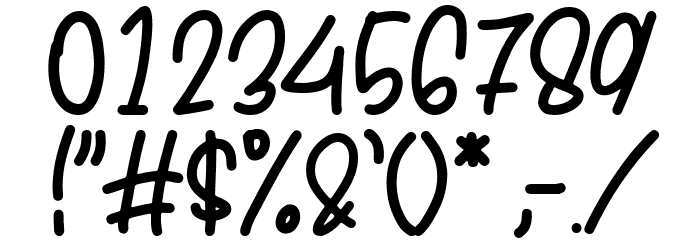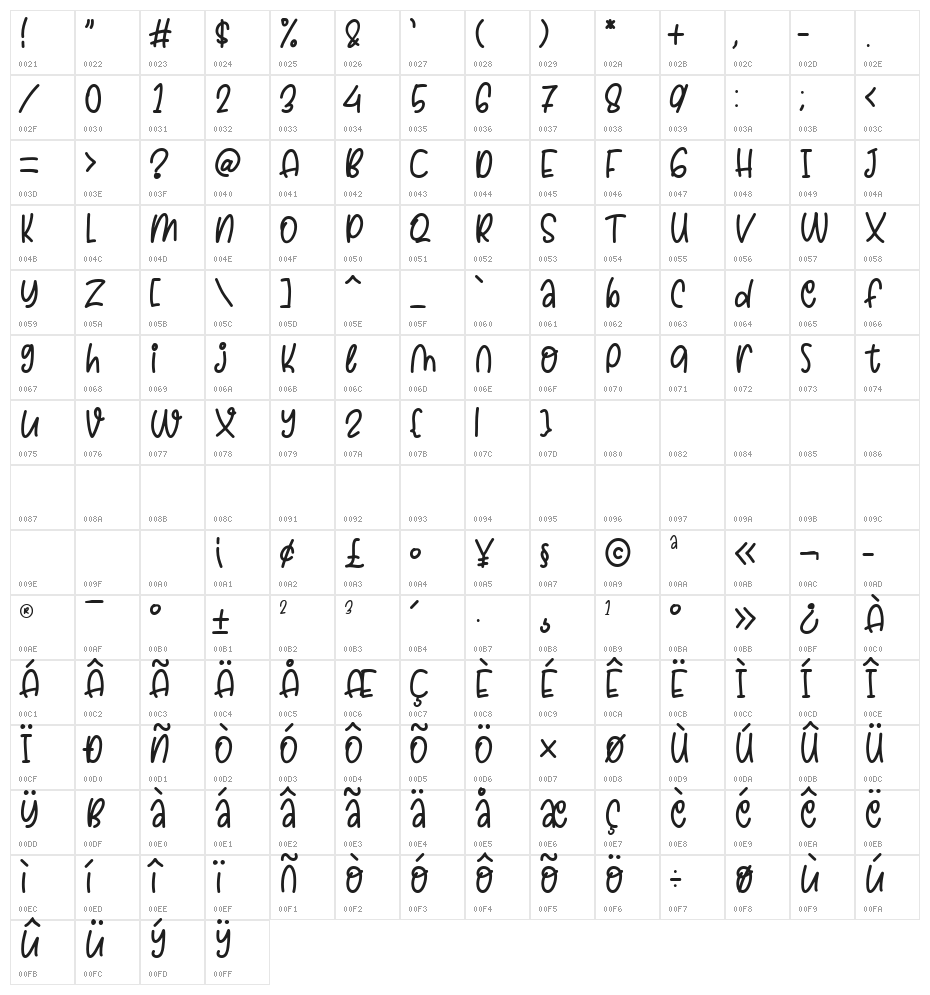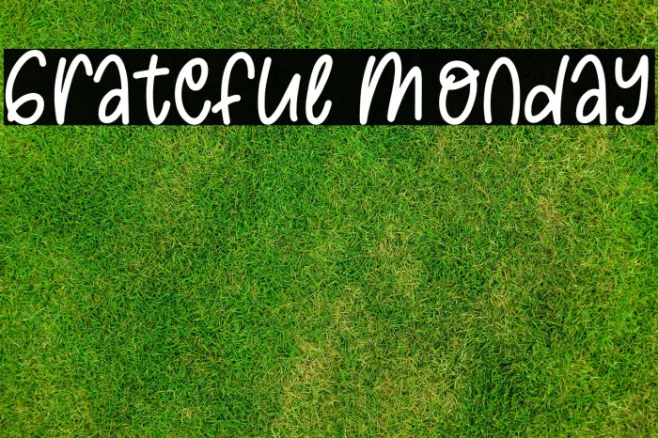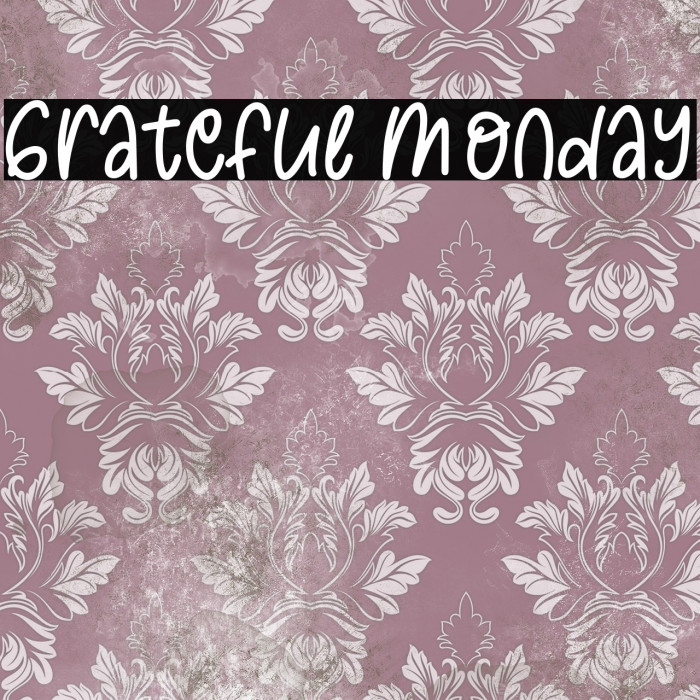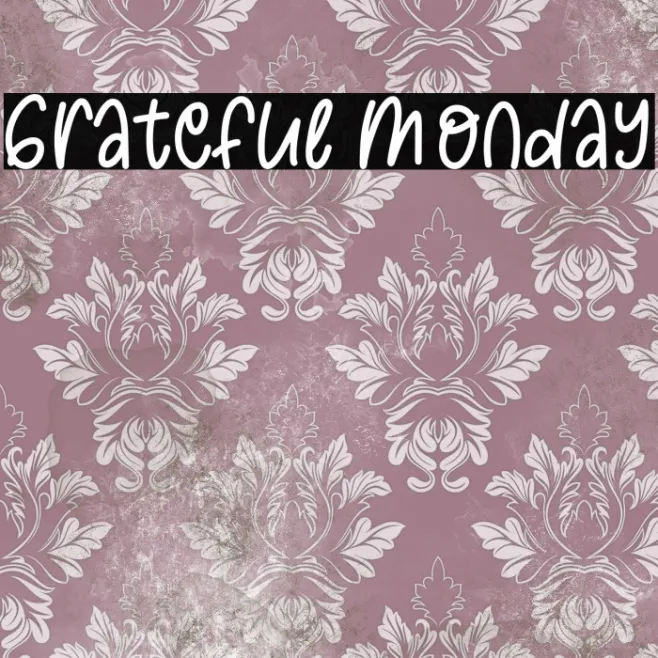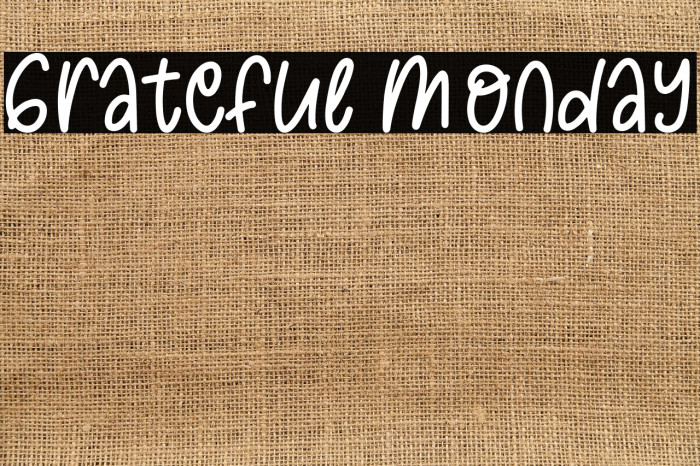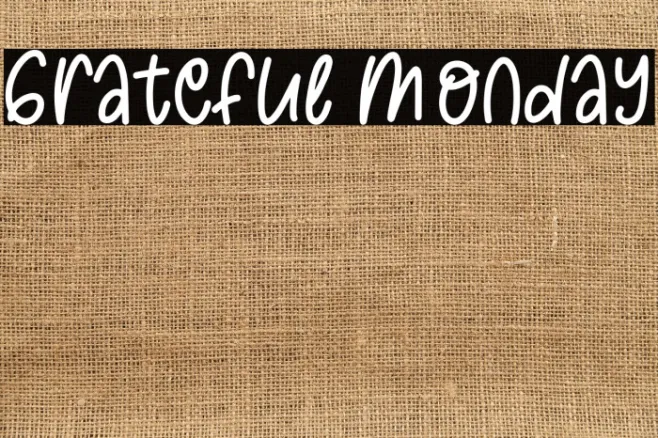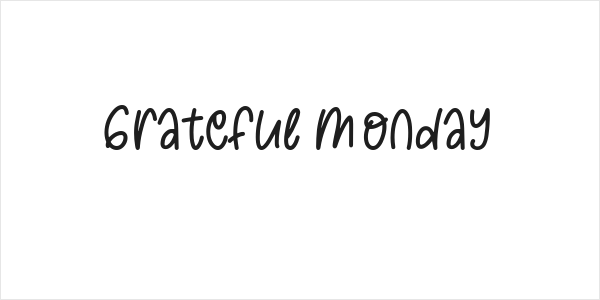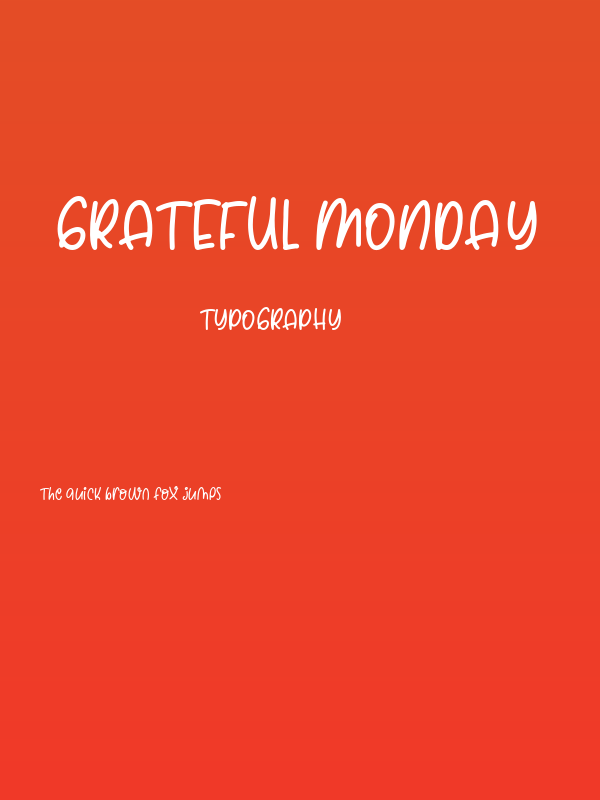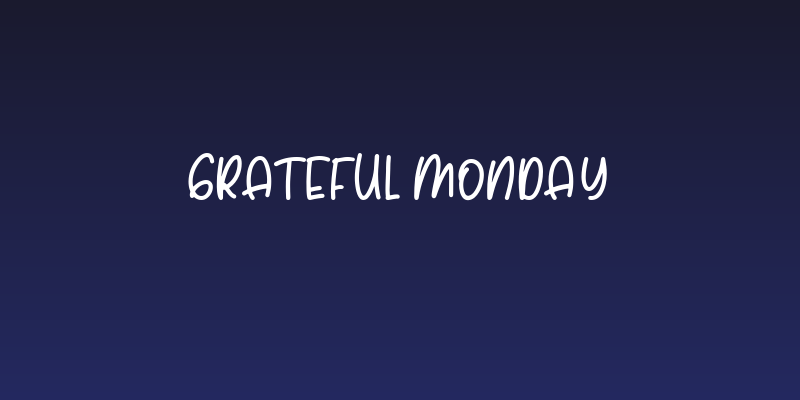
Grateful Monday Font
Grateful Monday Description
This font exhibits a playful and casual handwritten style, characterized by its smooth, rounded strokes and slightly irregular baseline. The letters are bold and have a consistent thickness, giving them a friendly and approachable appearance. The uppercase and lowercase letters maintain a cohesive look, with a slight slant that adds to the informal feel. The numerals and special characters are designed to match the overall aesthetic, ensuring a harmonious look across all text. This font is ideal for projects that require a personal touch or a relaxed vibe.
| Use Case | Headlines, Logos, Informal text |
| Proposed Projects | Greeting cards, social media graphics, children's books, casual branding, and personal blogs. |